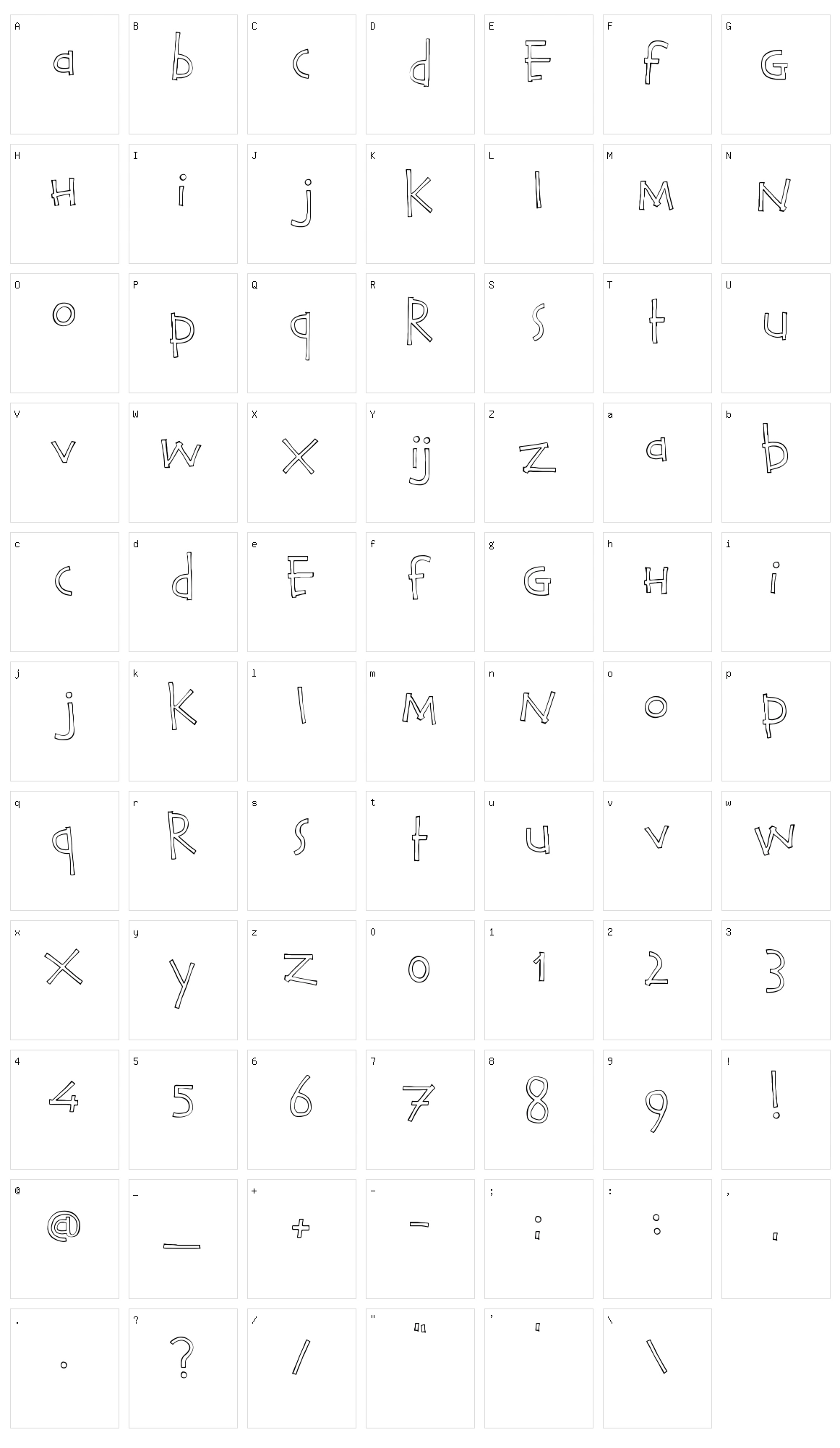
The free font Calvin and Hobbes is carefully designed by Martijn Reemst, showcasing a thoughtful balance of creativity and usability and falls under the Cartoon font style. When you download the ZIP file, it contains only 54.6 KB of font files, making it lightweight and quick to download. Please review the license details below to understand permitted usage and distribution rights. If license information is not available, we recommend using this font for personal projects only or contacting the author directly for commercial usage permissions.